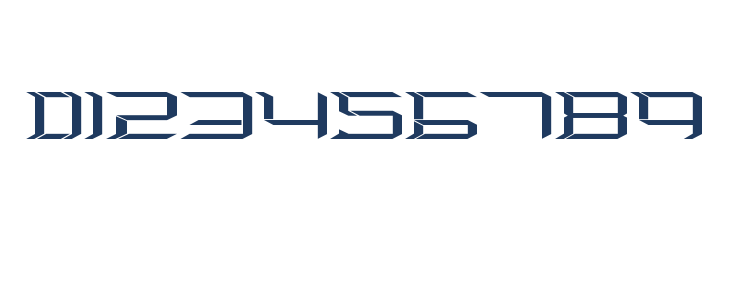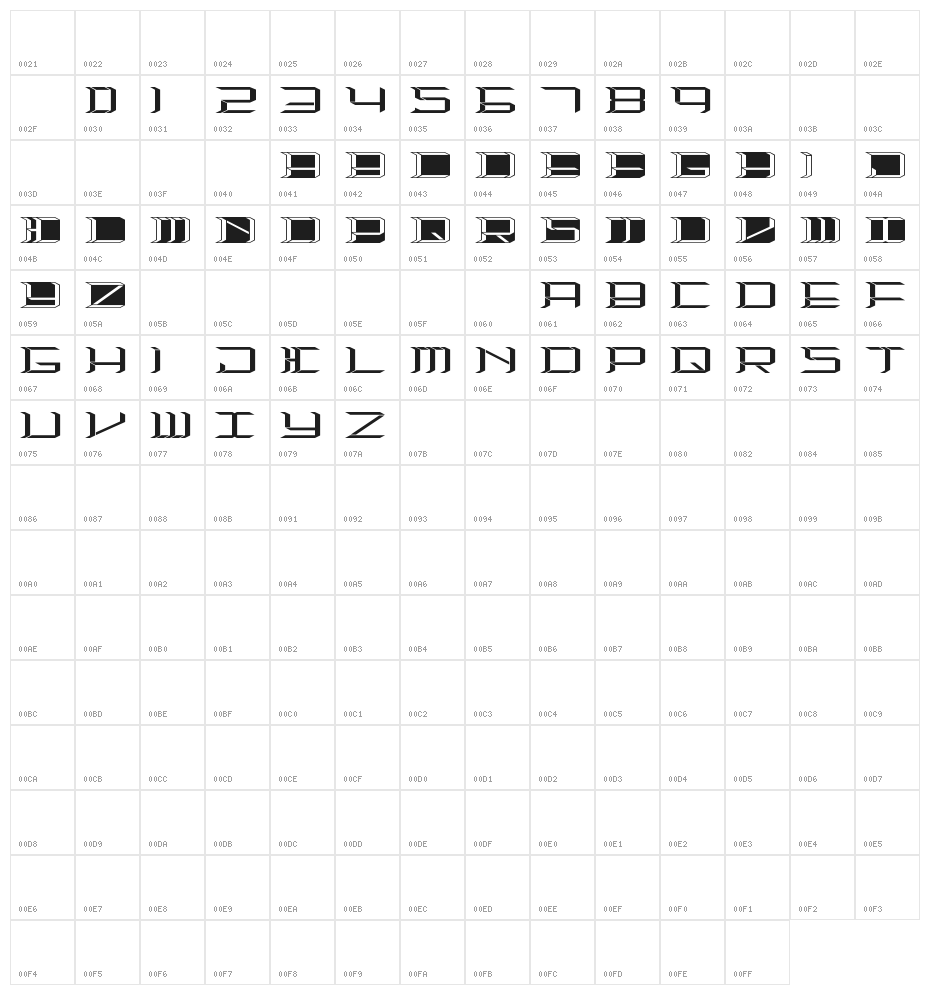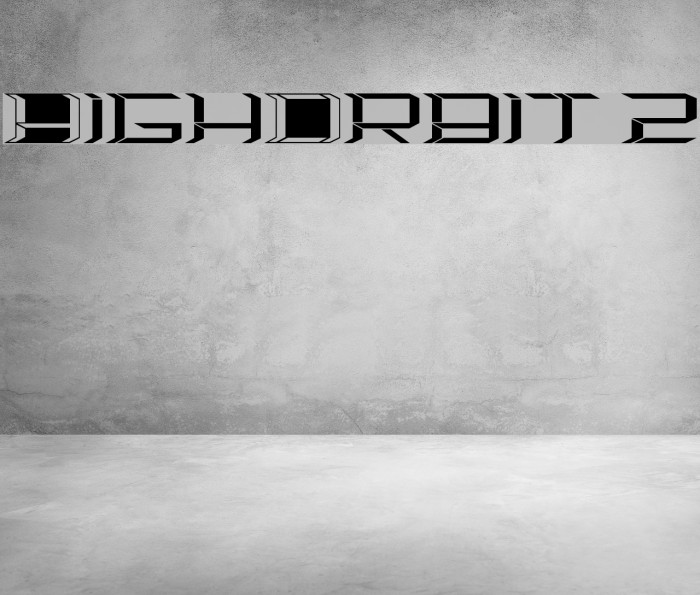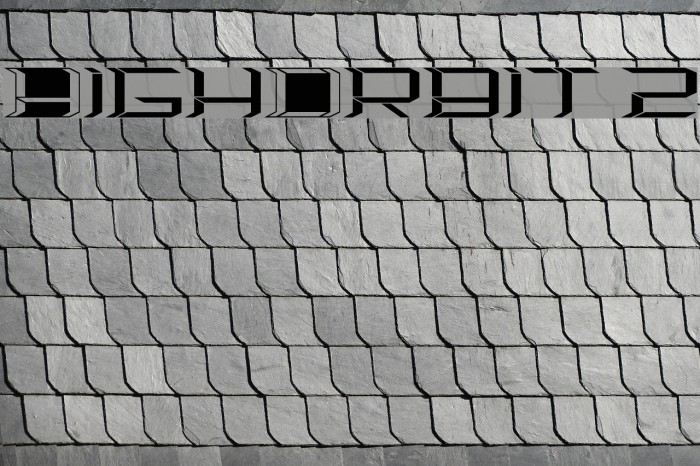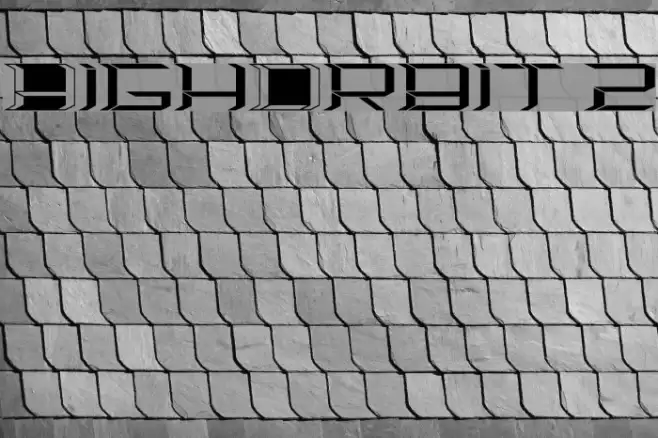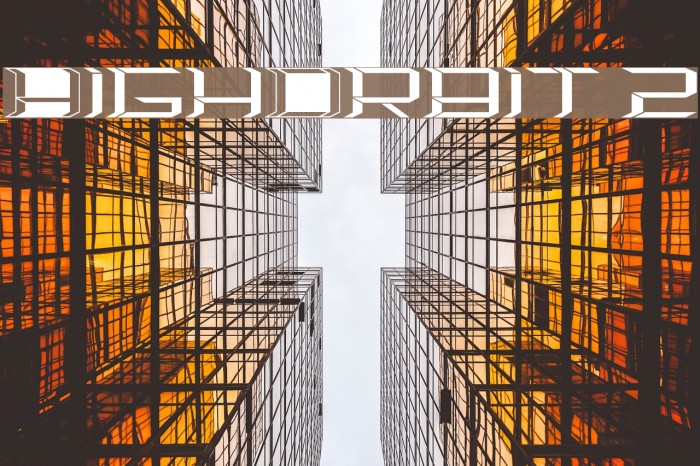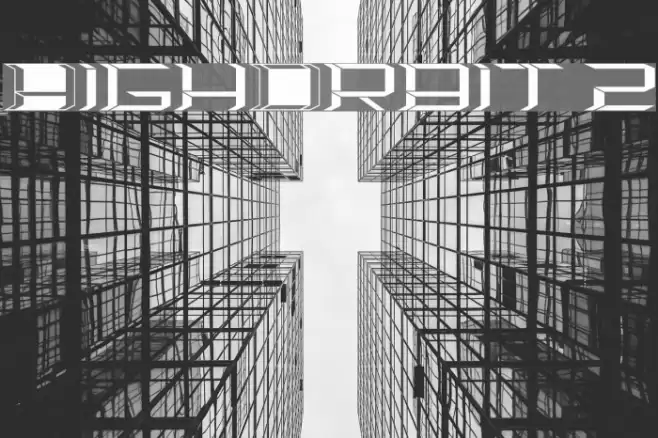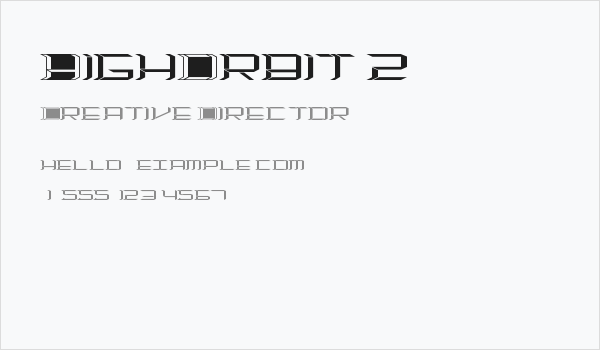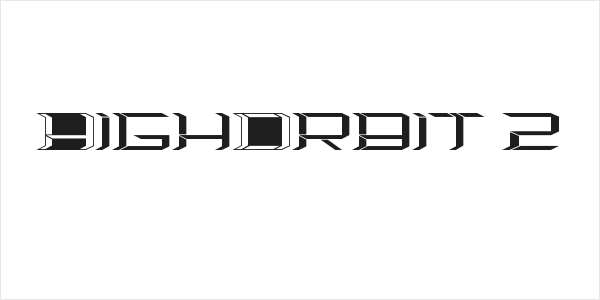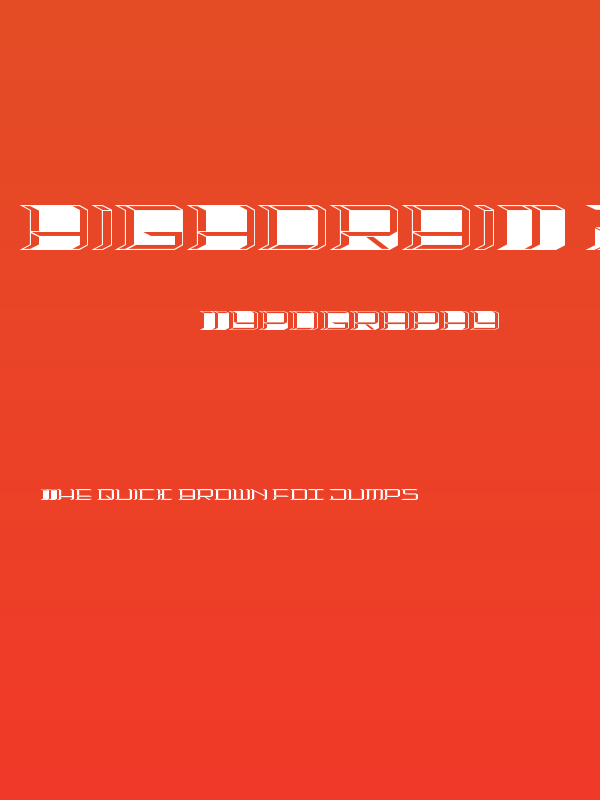
HighOrbit 2 Font
HighOrbit 2 Description
This font features a futuristic and geometric design with a strong emphasis on angular lines and sharp edges. The characters are constructed with a combination of thick and thin strokes, creating a high contrast that enhances readability while maintaining a unique aesthetic. The uppercase letters are bold and commanding, while the lowercase letters maintain a consistent style, offering a cohesive look across all text. The numbers and special characters follow the same design principles, ensuring uniformity. This font is ideal for projects that require a modern and edgy appearance.